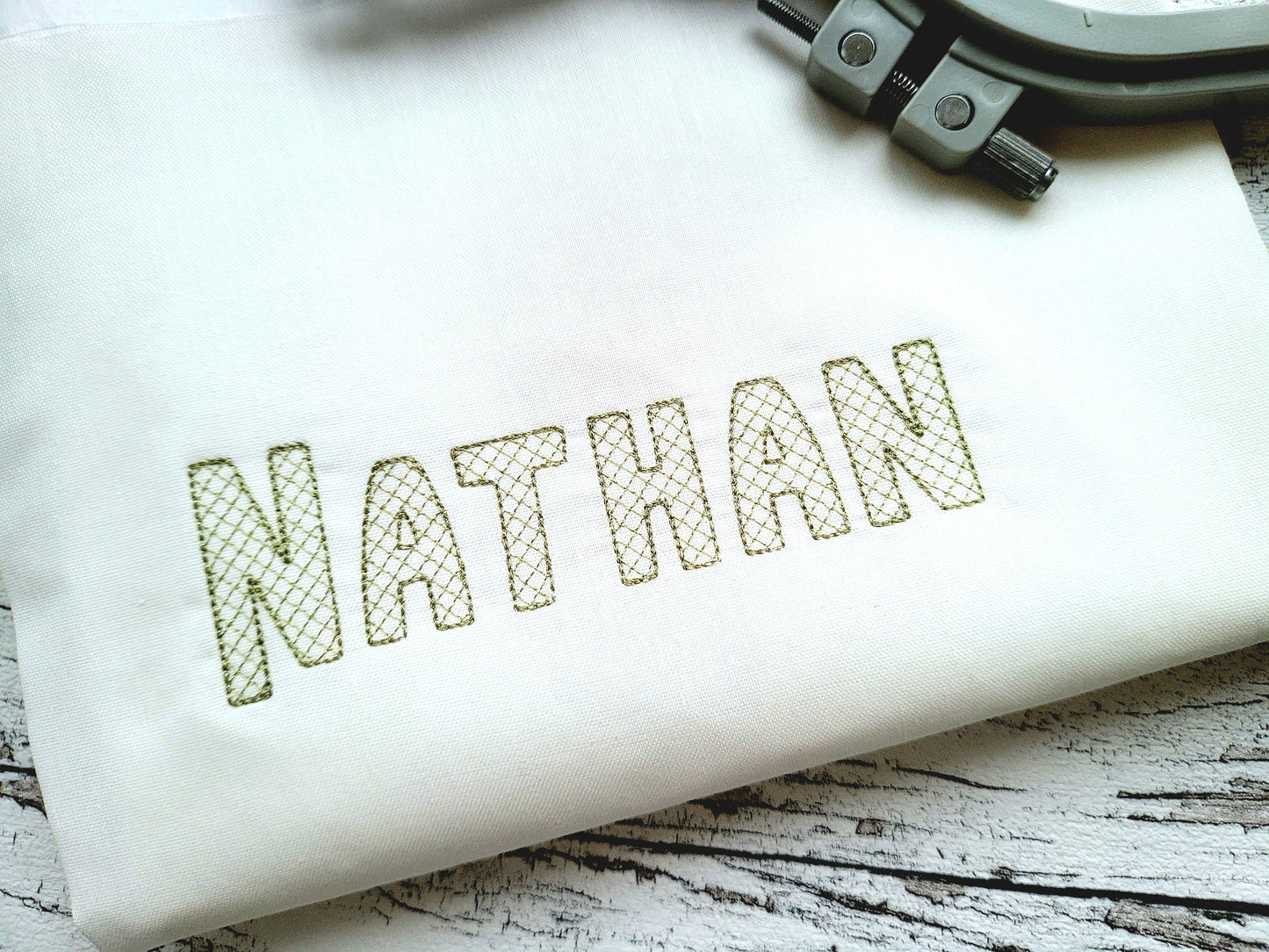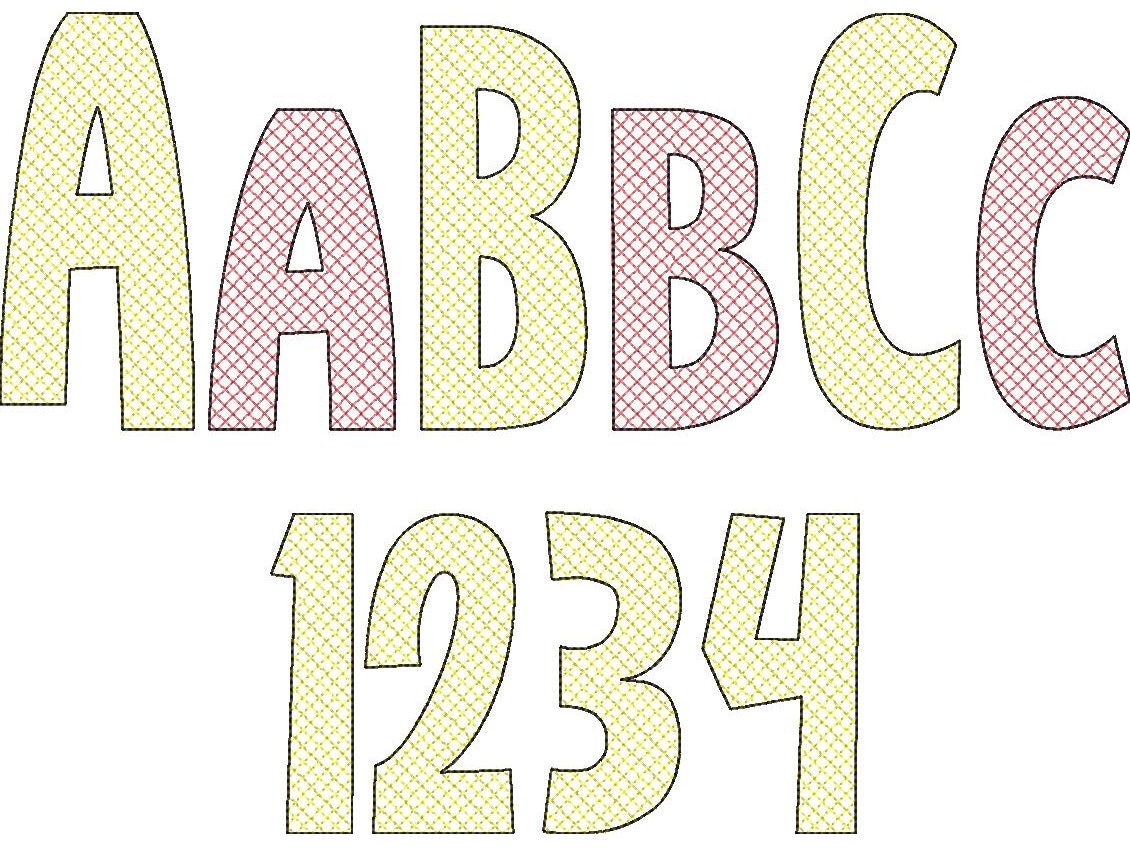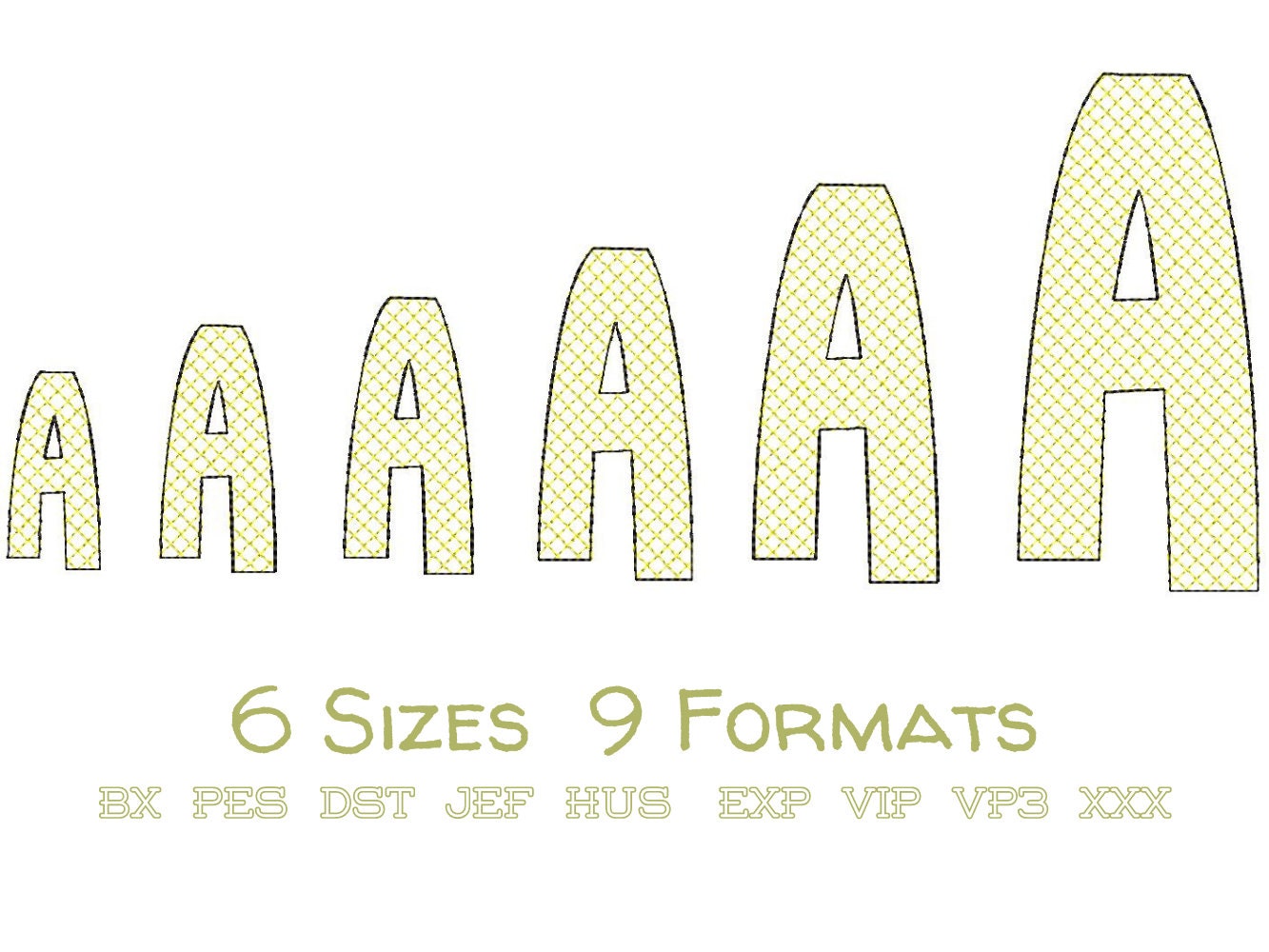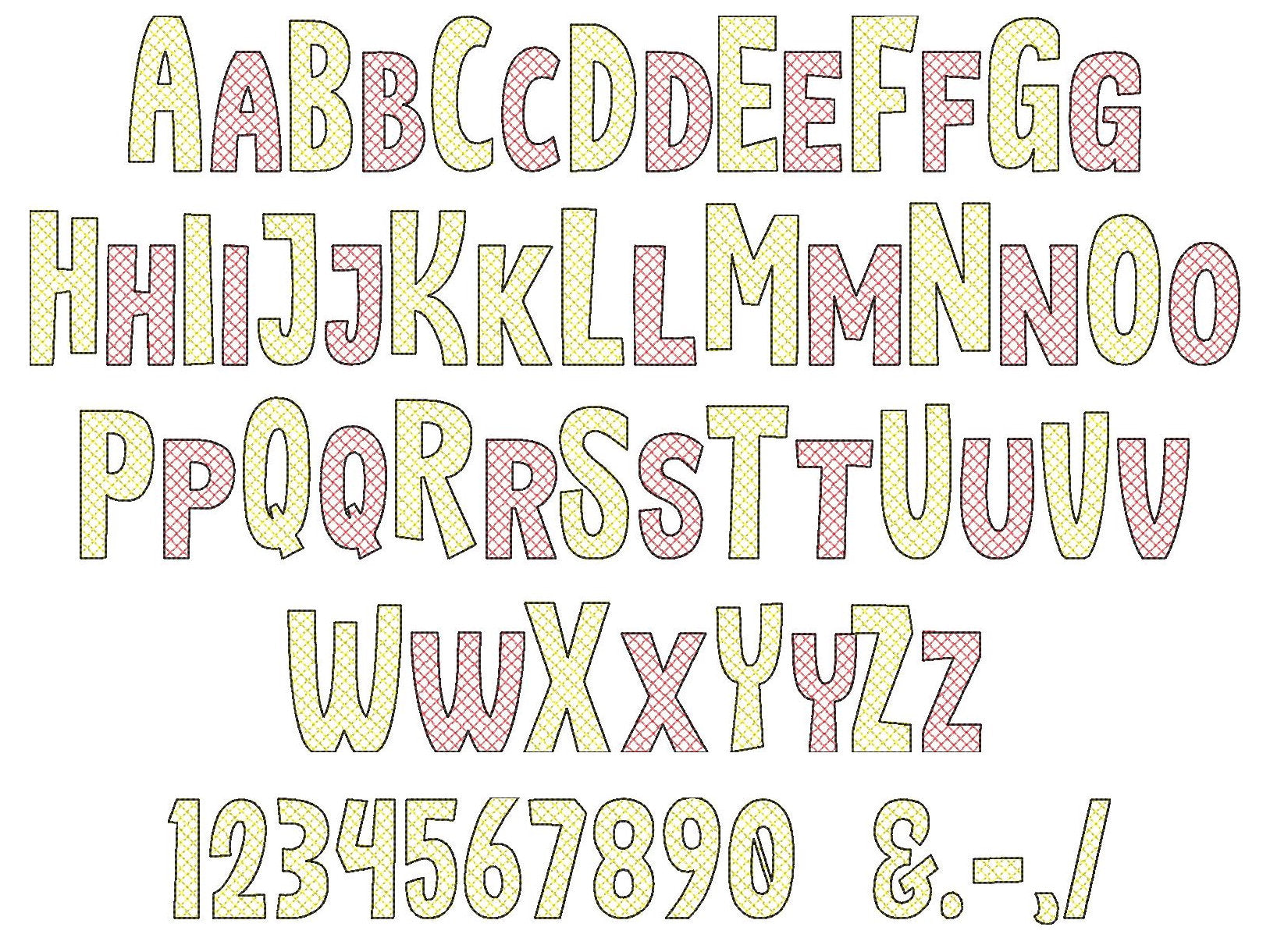
Quick Light Stitch Checked Font
Or click to open the linkA playful checked font in quick, light stitching that looks like lace. Fun for kids' names and monograms on shirts, bags and pillows.
Uppercase and lowercase letters, numbers 0 to 9 and punctuation, in six sizes: 1.7, 2, 2.3, 2.8, 3.3 and 4.3 inches. The fabric shows through the checked pattern.
- Checked light stitch font, uppercase and lowercase
- Numbers 0 to 9 and punctuation
- 6 sizes, 1.7 to 4.3 in